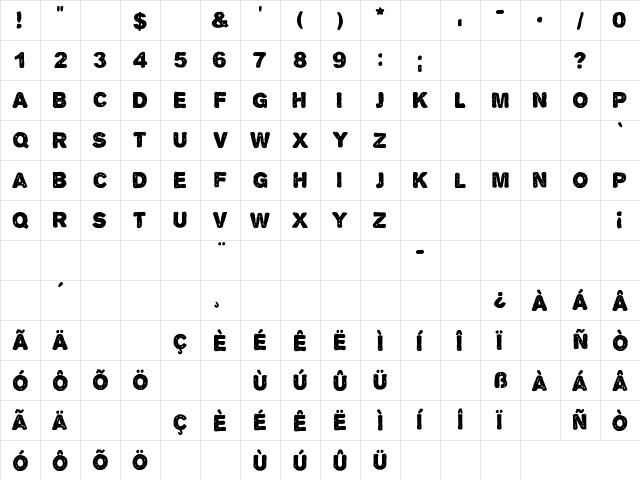
Complete Alpha Echo Regular glyph index. Displaying only characters natively supported by Alpha Echo Regular font.
Alpha Echo is a composed and adaptable typeface that performs quietly and consistently across a wide range of design contexts.